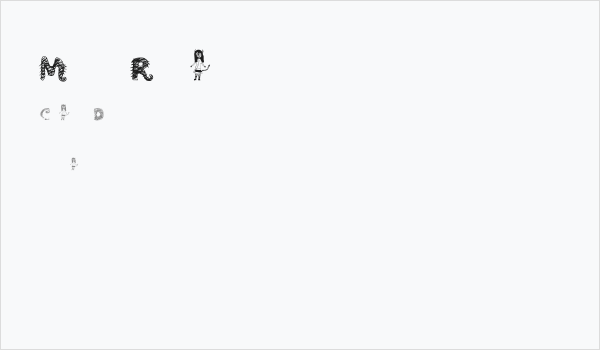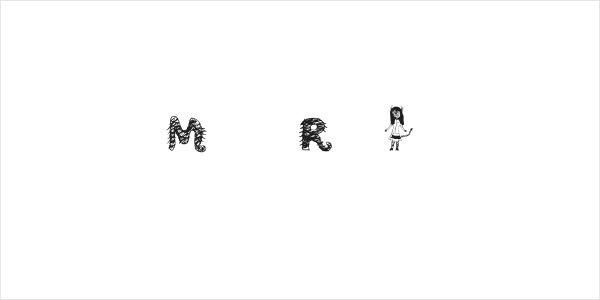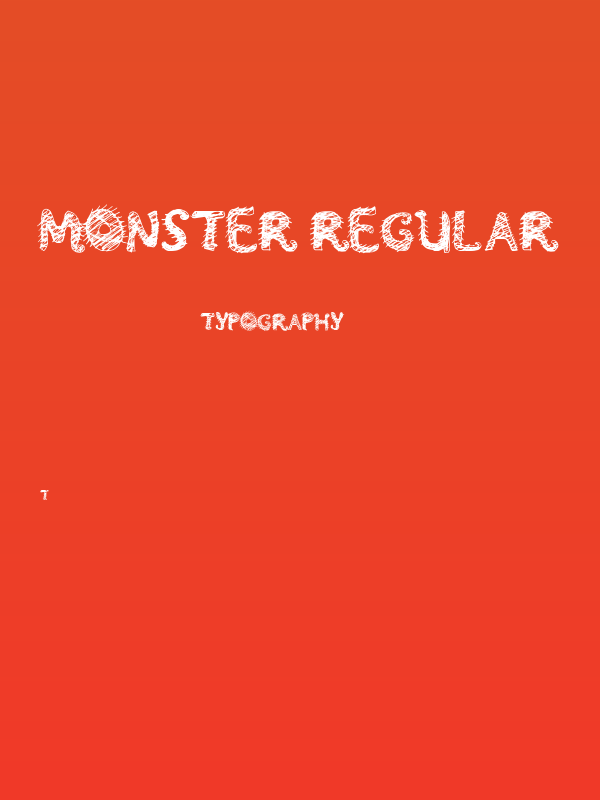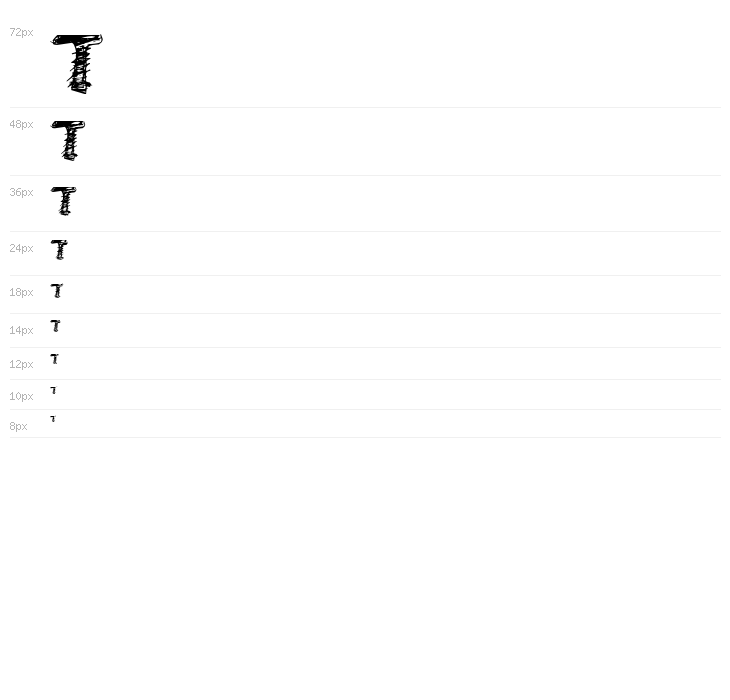
Monster Regular Font
Monster Regular Description
This font features a playful and whimsical design, characterized by its sketch-like appearance. Each letter is crafted with a textured, hand-drawn style that resembles scribbles or doodles, giving it a unique and artistic flair. The font maintains a consistent thickness throughout, with a slightly irregular edge that adds to its charm. It evokes a sense of creativity and fun, making it ideal for projects that require a touch of personality and imagination. The overall look is both casual and engaging, perfect for capturing attention in a lighthearted manner.
| Overall Style | Whimsical, Artistic |
| Proposed Projects | Ideal for children's books, creative posters, playful branding, and artistic invitations. |